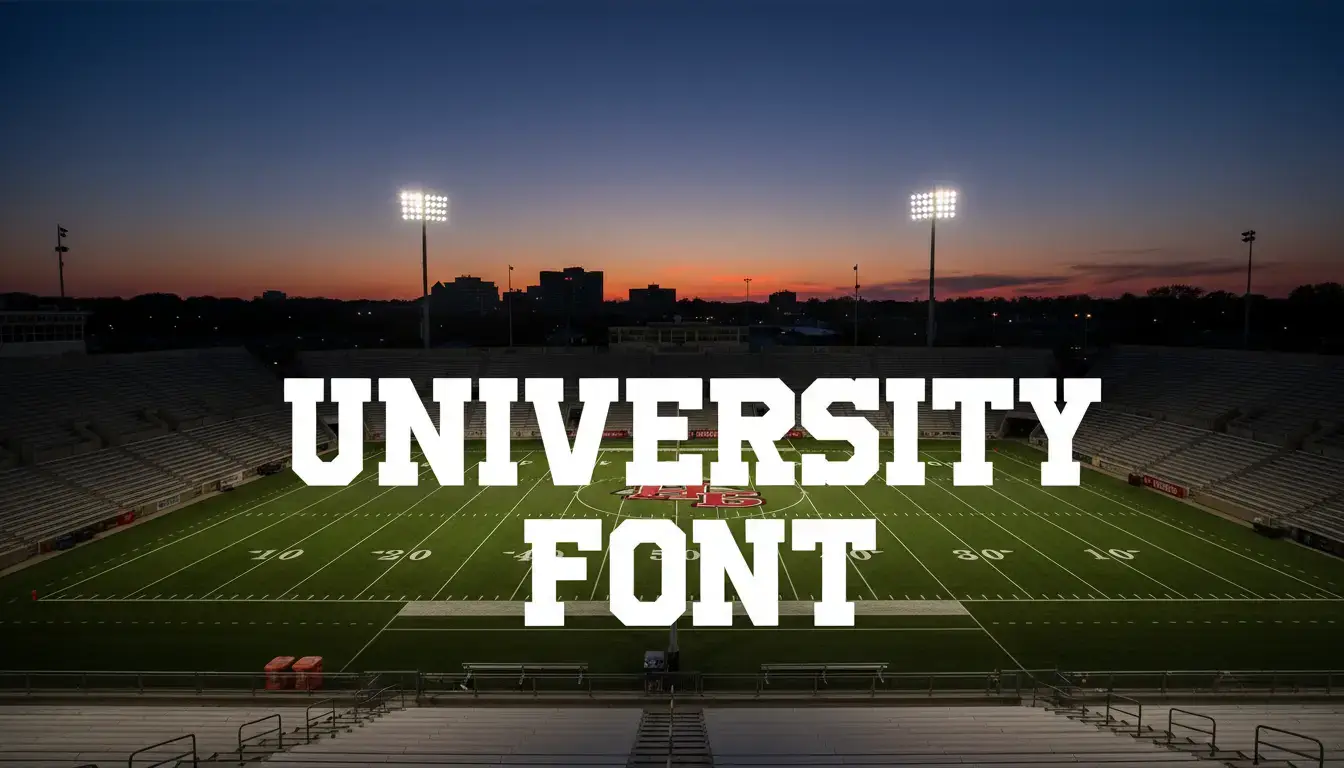
University Font
University
University is a fancy font created by GeronimoFonts. Bold and full of character, it's built to stand out rather than blend in. You can download it for free and test it with your own words in the preview above.
What You Can Type With University
University covers the full alphabet in upper and lowercase, plus all ten numbers, so you can set names, dates and prices without switching fonts. Common punctuation such as !, ?, # and $ is included as well. It doesn't include accented letters such as é or ñ, which makes it an English-only font.
Where University Works Best
University is a natural fit for posters, logos and eye-catching headlines. Use it for one standout word or headline and let simpler fonts handle the rest.
Does University support accented letters?
No. University has no accented letters such as é, ñ or ü, so it's best for English text.